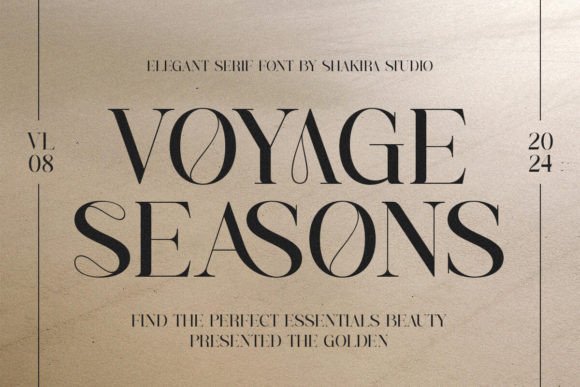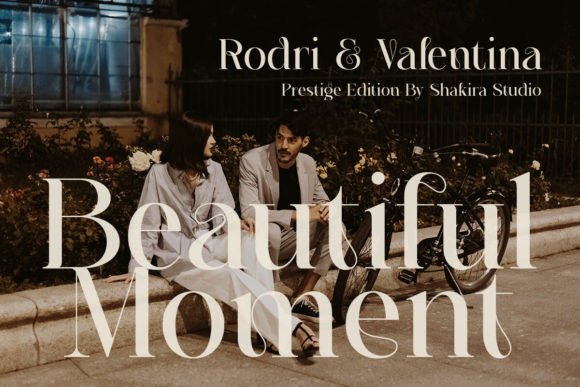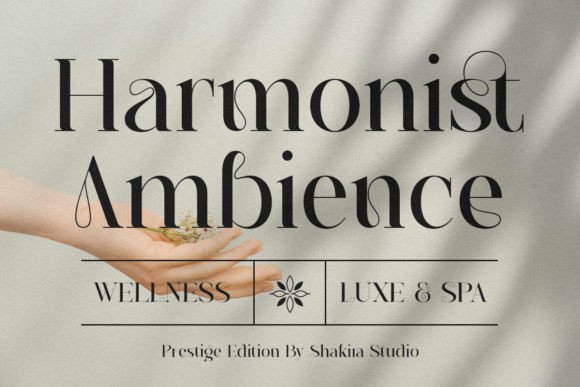
Introduction to Prestige Edition Font
As a designer, you’ve likely found yourself stuck on a project, searching for that perfect font to elevate your design. You scroll through your favorite font libraries, but nothing seems to capture the essence of luxury and sophistication you’re aiming for. That’s where the Prestige Edition Font comes in – a game-changing display serif font that exudes high-end style and refinement.
With its array of attractive alternates and ligatures, Prestige Edition Font is the perfect addition to any creative project, from high-end branding to fashion editorials and upscale packaging. Whether you’re working on a design project with a transparent background or need a font that screams high quality, Prestige Edition Font is sure to impress.
Prestige Edition Font
- High-quality design resource ideal for creative projects, offering a sophisticated and elegant look.
- Unique characteristics include a luxurious feel and a touch of sophistication, making it perfect for high-end designs and creative projects.
Honest Review: Prestige Edition Font
As a designer, I’ve come across my fair share of fonts, but the Prestige Edition Font caught my eye. I downloaded it for free, expecting it to be a generic, run-of-the-mill font. But boy, was I wrong!
What works well: ✨ The Prestige Edition Font has a unique, elegant design that’s perfect for creative projects that require a touch of sophistication. The high quality of the font makes it a great addition to any design resource. I particularly like the fact that it comes with a transparent background, making it easy to use in any design scenario.
What doesn’t work well: ⚠️ While the font is free to download, I’ve noticed that it’s not as versatile as some of the other fonts I’ve worked with. It’s perfect for headings and titles, but it might not be the best choice for body text. Additionally, the font’s size can be a bit inconsistent at times, which can be a problem for designers who require precise typography.
Overall impression: The Prestige Edition Font is a solid addition to any designer’s toolkit. While it may have some limitations, its unique design and high quality make it a great choice for creative projects that require a touch of elegance.
- Unique, elegant design
- High quality font
- Perfect for headings and titles
Prestige Edition Font
The Prestige Edition Font is a high-quality design resource perfect for creative projects. With a transparent background, this font is ideal for adding a touch of elegance to your work.